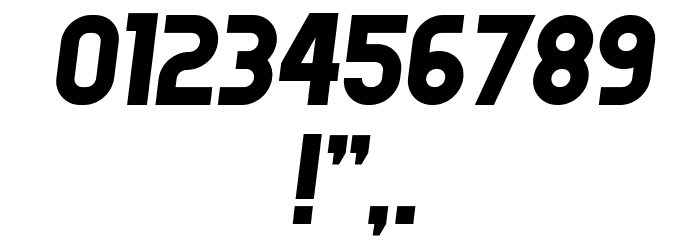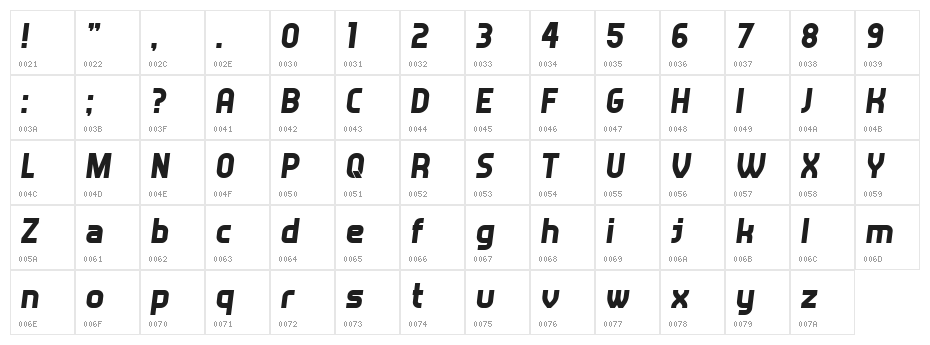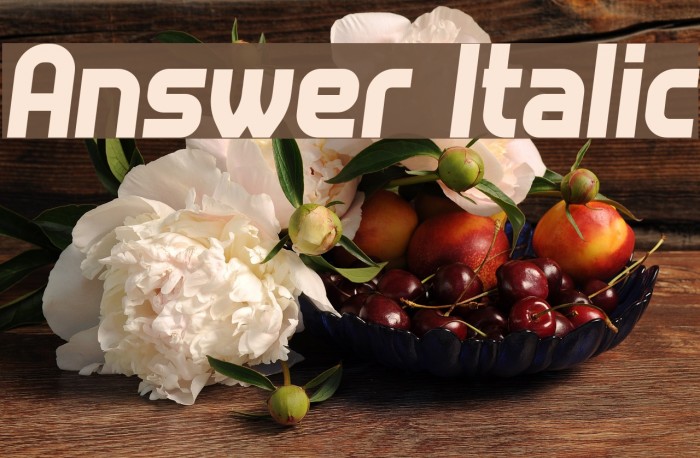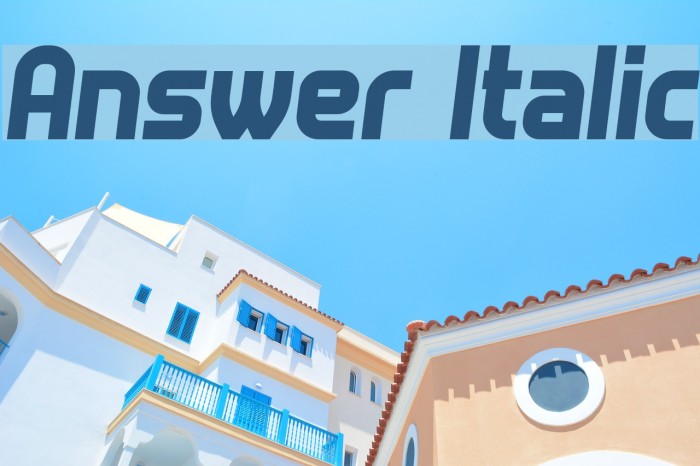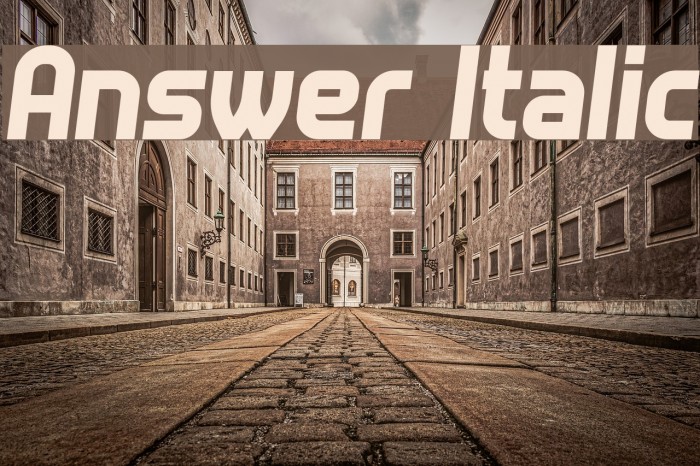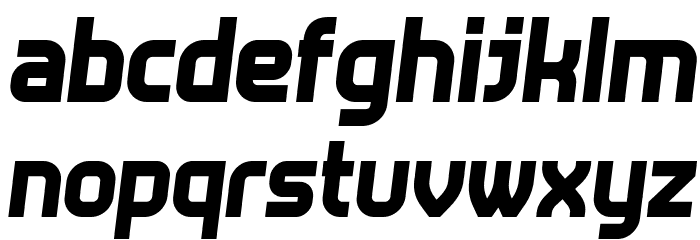
Answer Italic Font
Answer Italic Description
This font features a bold and dynamic italic style, characterized by its strong geometric shapes and slightly condensed form. The letters are slanted, giving a sense of motion and energy. The uppercase and lowercase characters maintain a consistent weight, ensuring readability while adding a modern flair. The numerals are clear and distinct, matching the overall boldness of the alphabet. Special characters are designed to complement the letterforms, maintaining the font's cohesive look. This typeface is ideal for making a statement, with its eye-catching and assertive appearance.
| Proposed Projects | Ideal for sports branding, dynamic posters, modern advertising, and impactful headlines. |